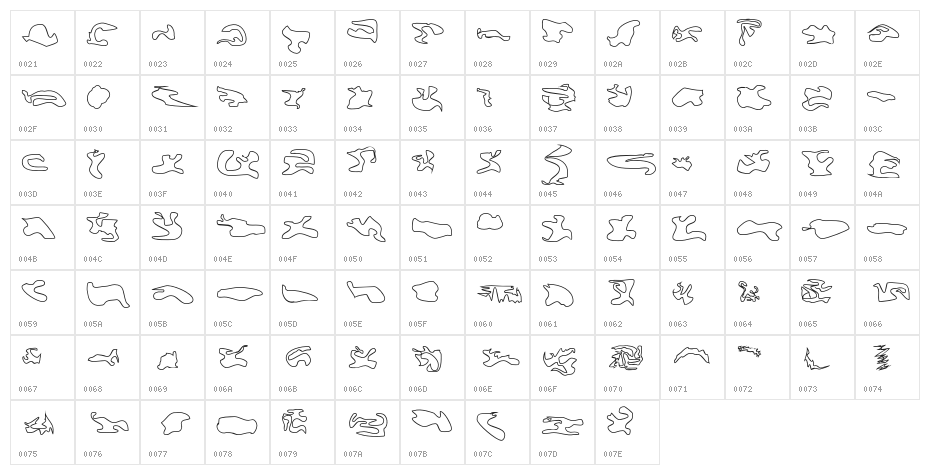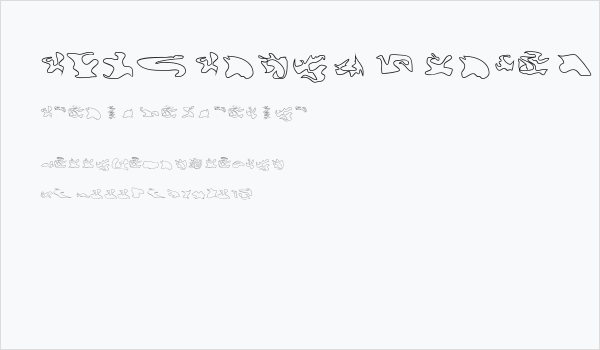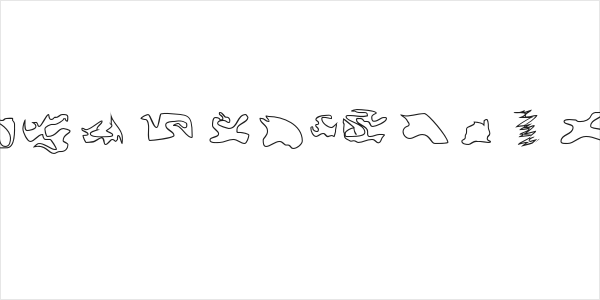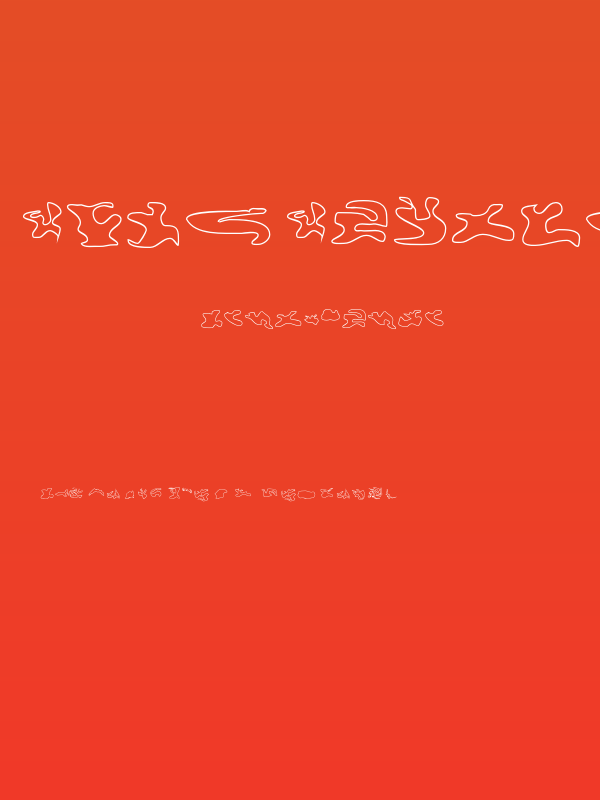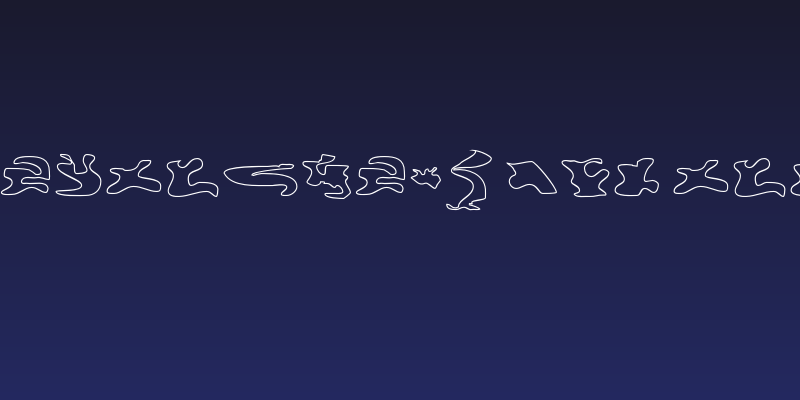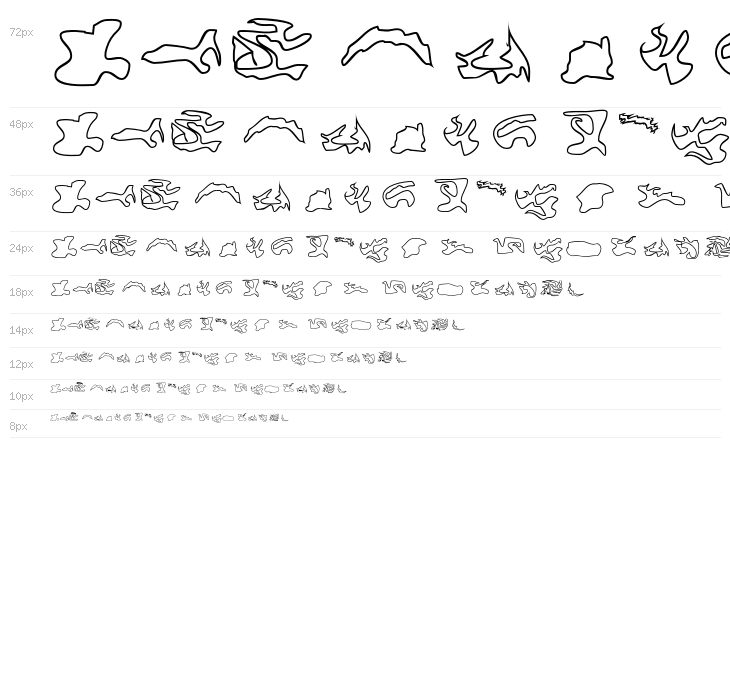
CISF Camouflage Kit Outline Font
CISF Camouflage Kit Outline Description
This font features an abstract and highly stylized design, resembling camouflage patterns. Each character is uniquely crafted with irregular, organic shapes that mimic natural forms. The outlines are bold and fluid, giving a sense of movement and dynamism. The font lacks traditional structure, making it more of an artistic representation rather than a conventional typeface. Its abstract nature challenges readability, focusing more on visual impact and creativity. The characters are interconnected with flowing lines, creating a cohesive yet chaotic appearance. This font is ideal for projects that require a distinctive and unconventional aesthetic, particularly in artistic or avant-garde contexts.
| Use Case | Logos, Artistic designs, Creative branding |
| Proposed Projects | Ideal for artistic projects, avant-garde designs, abstract art pieces, and creative branding that seeks a unique visual identity. |